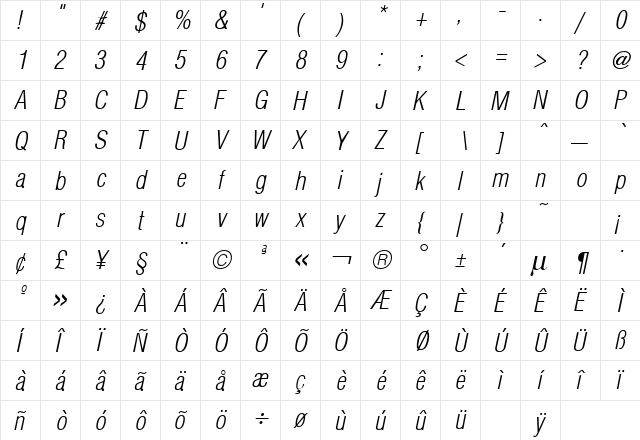
Hallmarke Condensed Light Italic Font Preview
Design Context for Hallmarke Condensed Light Typeface
Hallmarke Condensed Light offers clean, dependable letterforms without strong stylistic allegiance, making it a practical choice for designers who need flexibility. Its italic angle brings a sense of urgency and motion to the letterforms. The delicate stroke weight brings airiness and refinement to layouts. Its narrow stance lets it pack a punch even in space-constrained designs.
Pro Tip: Use Hallmarke Condensed Light for emphasis, pull quotes, and subheadings where its slanted energy can add rhythm to the layout.